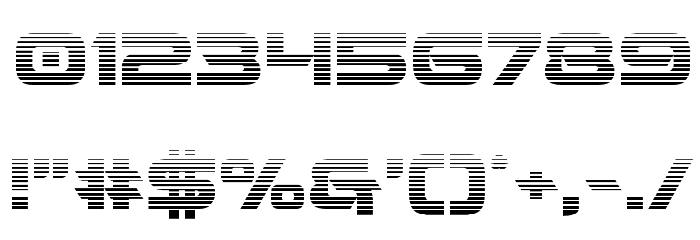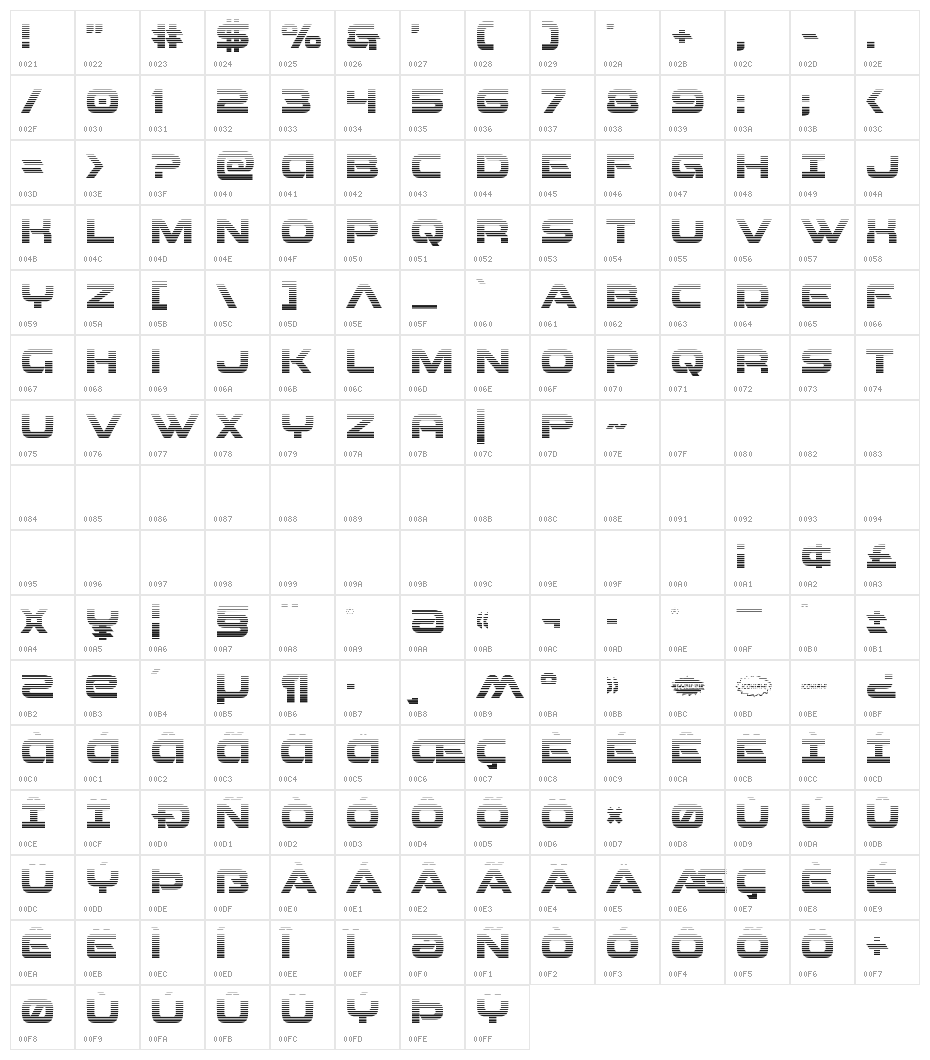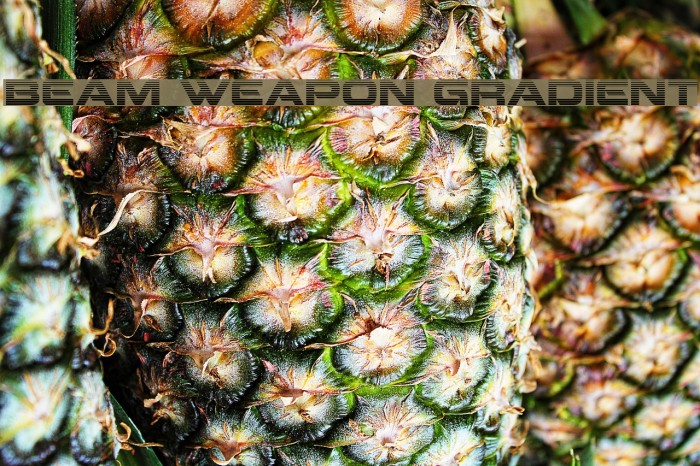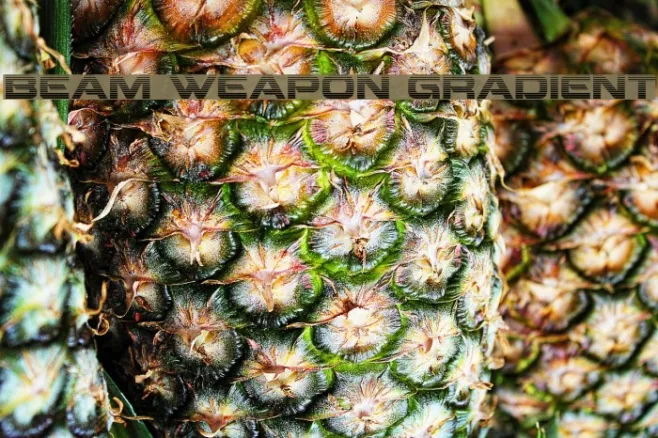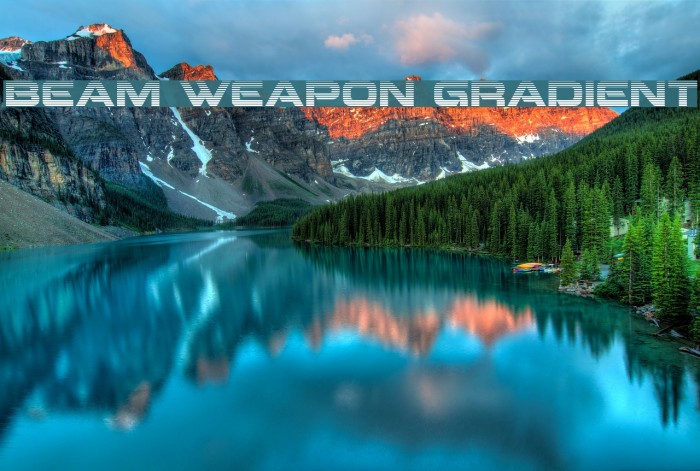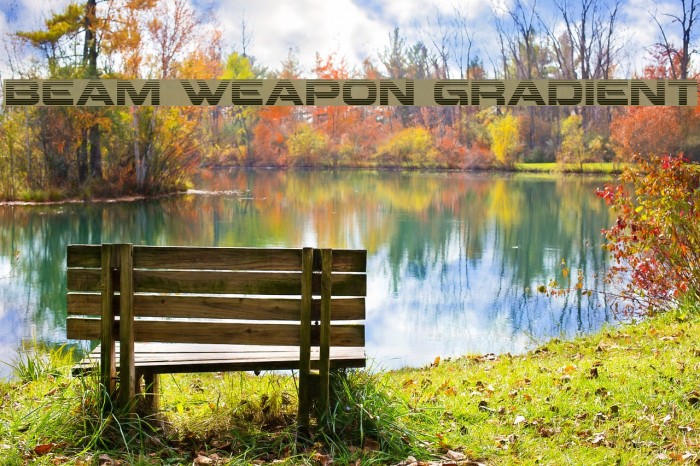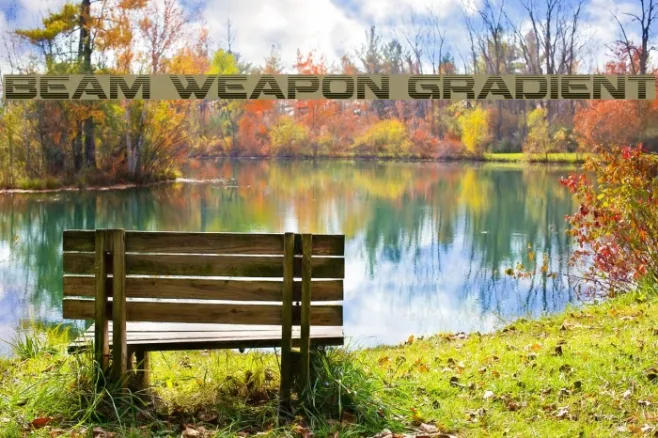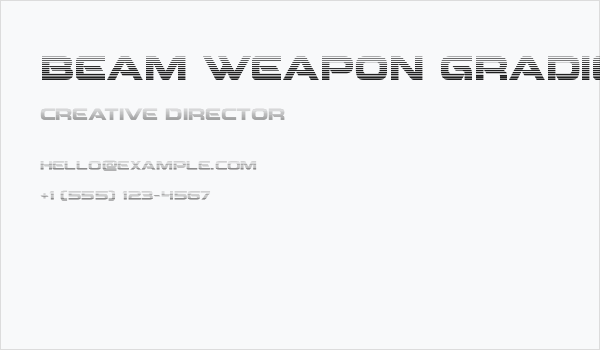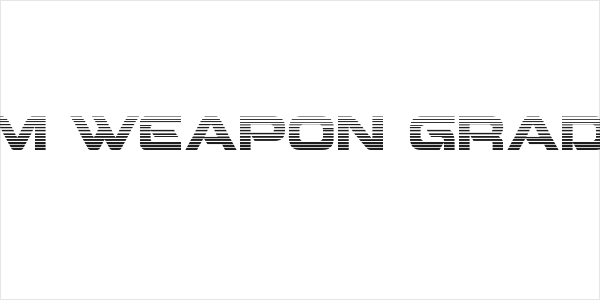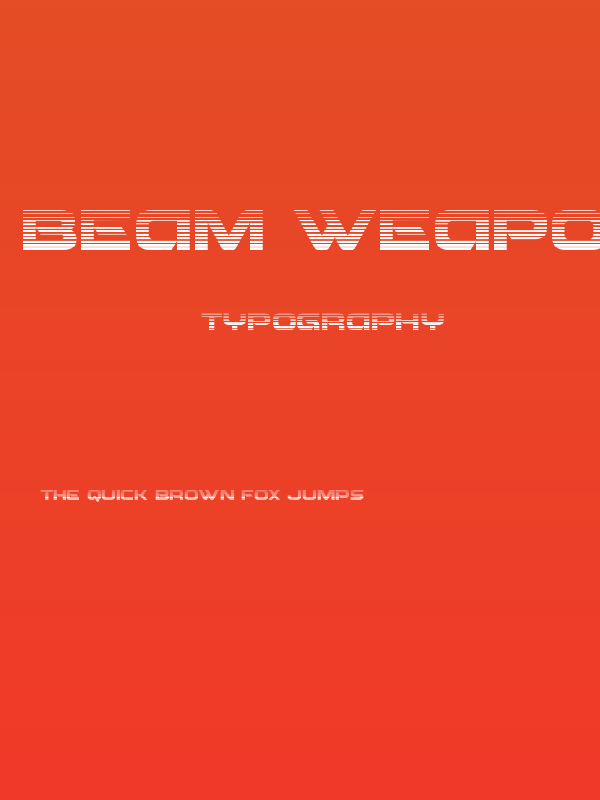
Beam Weapon Gradient Font
Beam Weapon Gradient Description
This font features a futuristic and dynamic design characterized by horizontal lines that create a gradient effect across each character. The uppercase and lowercase letters, along with numbers and special characters, maintain a consistent style, giving the font a cohesive and modern appearance. The lines vary in thickness, adding a sense of movement and energy. This design is particularly eye-catching and suitable for projects that require a bold and innovative look.
| Proposed Projects | Ideal for sci-fi themed posters, video game titles, technology branding, and futuristic event invitations. |